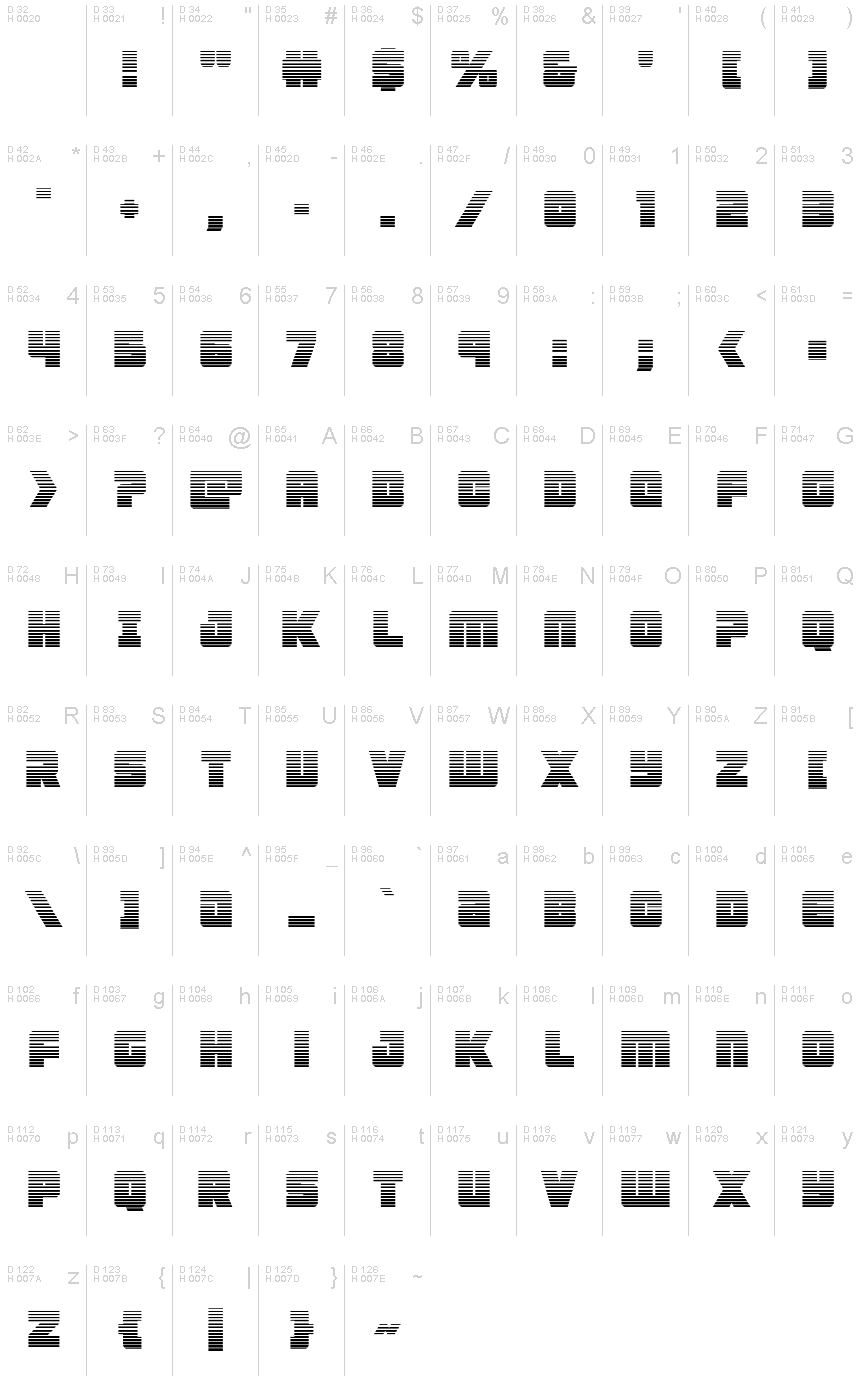
4ce Gradient
4ce Gradient is a cutting-edge display font from the esteemed designer, Iconian Fonts. With its techno-inspired design and extra-bold weight, this font is perfect for projects that require a futuristic touch. The expanded width of 4ce Gradient makes it ideal for large-scale designs such as movie posters, billboards or even video game covers. Its unique style and vibrant gradient effect will add an eye-catching element to any project. Whether you're creating a high-tech website, a sci-fi book cover or an album art for an electronic dance music artist – 4ce Gradient will take your design to the next level.